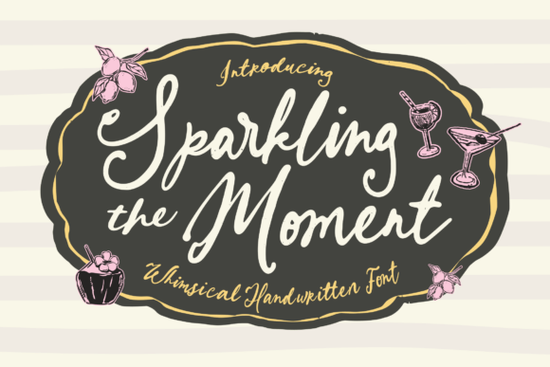
If you're looking for a handwritten script font that feels warm, personal, and quietly joyful without being overly ornate or hard to read Sparkling Moment Font fits naturally into real-world design work. It’s not just another decorative script; it’s a thoughtfully drawn, fully functional typeface made for projects where tone matters as much as typography. Think wedding stationery that breathes ease instead of formality, café menus that invite conversation, or lifestyle brand packaging that feels like it was made by hand not generated.
What kind of projects does Sparkling Moment actually work well for?
This isn’t a one-trick font. Its balanced rhythm and soft contrast make it versatile across print and digital use especially when warmth and authenticity are priorities. Designers and small business owners consistently reach for it when they need something that reads as human, not algorithmic.
- Wedding invitations and save-the-dates where names and dates should feel special but never stiff
- Bridal stationery suites, including RSVP cards and thank-you notes that carry emotional weight
- Café branding and restaurant menus especially for spots with cozy, artisanal, or garden-party vibes
- Lifestyle brand packaging, like candle labels, tea tins, or skincare jars meant to sit on a shelf and feel inviting
- Social media templates for Instagram quotes, Reels captions, or Pinterest pins with gentle, feminine energy
You’ll also find it used in brunch party invites, boutique shop signage, and even modern logo marks particularly for businesses centered around self-care, slow living, or heartfelt celebration. It pairs nicely with clean sans-serifs for balance, or other soft scripts like Laundry Font or Tuesday Font for layered texture.
How does it compare to other romantic script fonts?
Unlike some script fonts that rely heavily on dramatic swashes or tight spacing, Sparkling Moment keeps readability front and center. Its lowercase letters flow smoothly without tangling, and the uppercase forms have just enough personality to stand out but not so much that they overwhelm. The alternates and ligatures are subtle, not showy: think natural joins between “f” and “i”, or a slightly lifted “t” crossbar not flourishes that distract from the message.
Is it beginner-friendly?
Yes if you’ve used any OpenType font before, you’ll recognize how this one behaves. No steep learning curve. Most design apps will auto-activate ligatures and stylistic sets, and even basic text tools handle its standard character set cleanly. If you’re new to scripts, start with simple headlines or short phrases first. Try pairing it with a neutral sans-serif like Montserrat or Lato for contrast. You’ll notice right away how much friendlier your layout feels.
For crafters using cutting machines, the clean outlines and consistent stroke weight help avoid cutting issues. Print-on-demand sellers report good results on greeting cards and mugs especially when printed at medium sizes (24–48 pt) where the warmth really shines.
Where else might you already know this style from?
It sits comfortably alongside other popular feminine script fonts like Wedding Party Font and Handwriting Bundle, but stands apart with its gentler baseline and more relaxed letter proportions. It doesn’t try to mimic calligraphy tools it feels like someone wrote it slowly, with care, and maybe a little smile.
If you’ve been searching for a script that’s romantic without being fussy, expressive without being exhausting to read, or handmade without sacrificing polish Sparkling Moment Font is worth trying next. It’s the kind of font you keep coming back to, not because it’s flashy, but because it simply works.